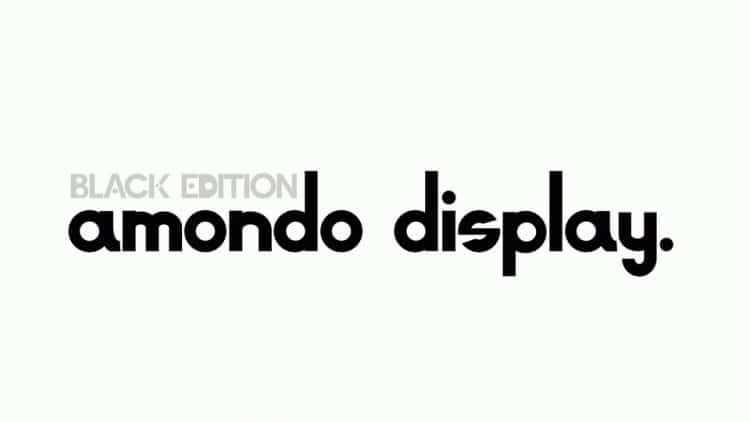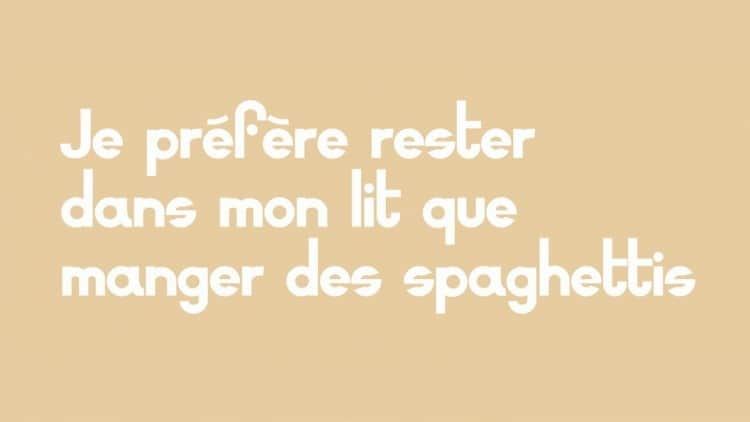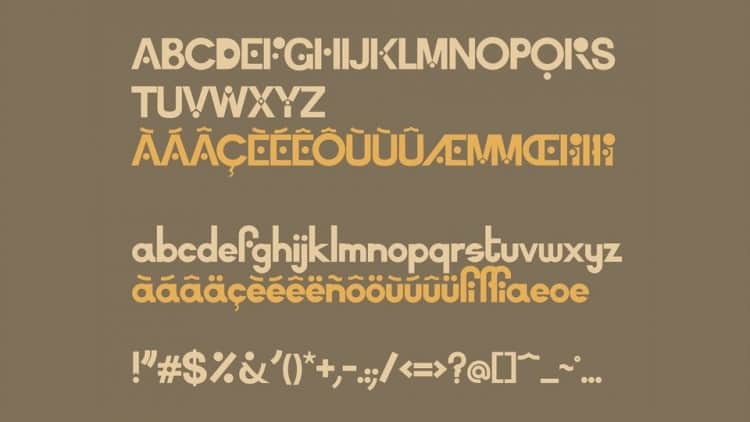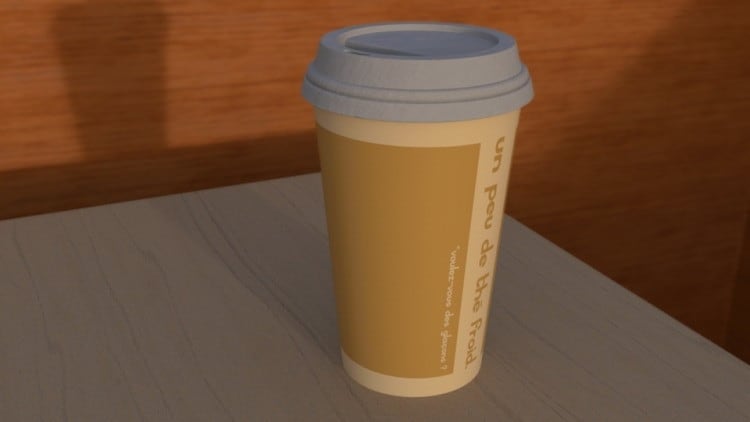
Amondo Sans Serif Font is an elegant modern sans serif font inspired by vintage fonts. Made from font designer named Simon Renoud-Grappin. This typeface is a contemporary geometric font with a strong personality. The font will be suitable for many creative projects, logos, posters, headlines, lettering, branding, magazines and other artworks.